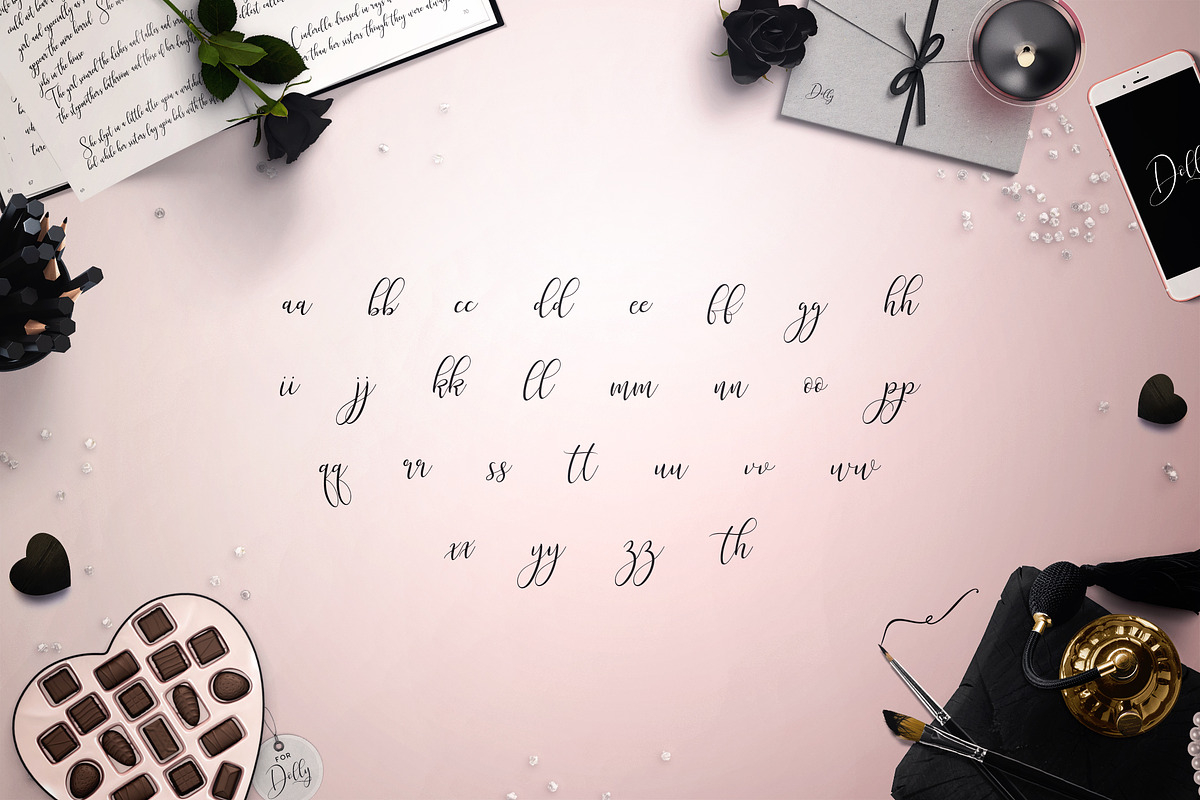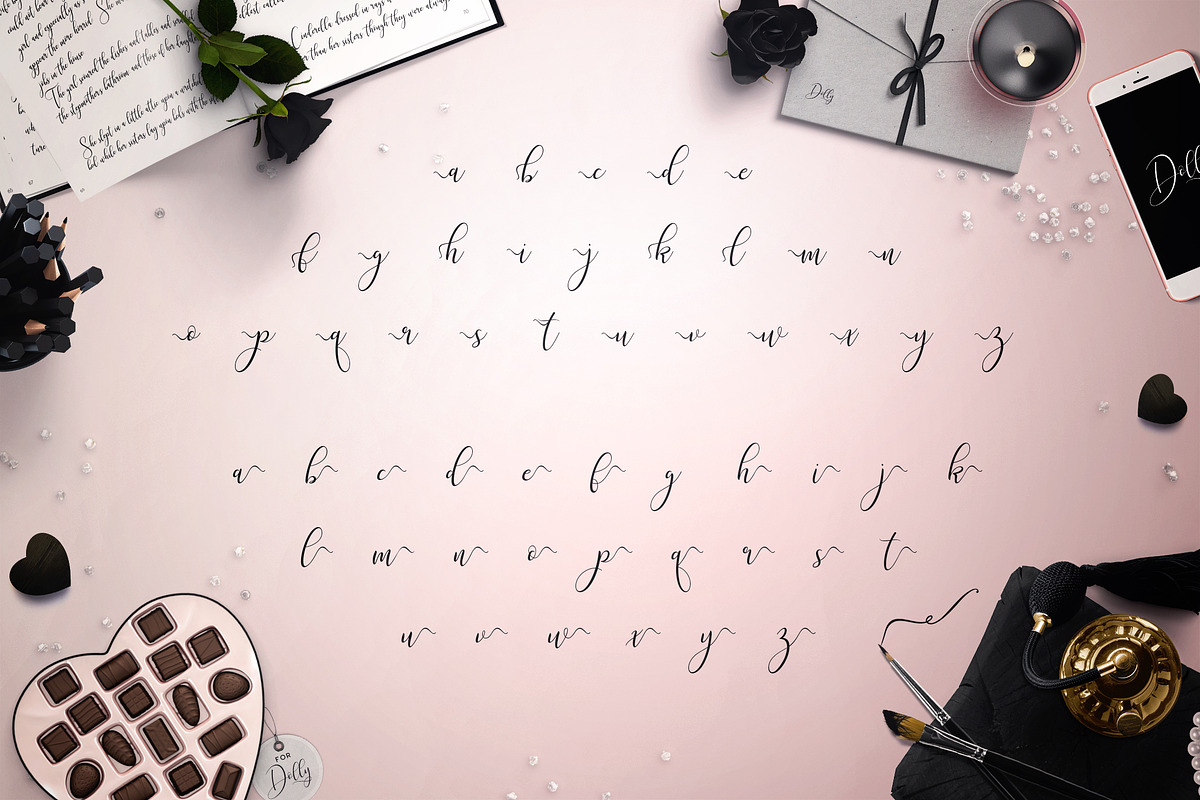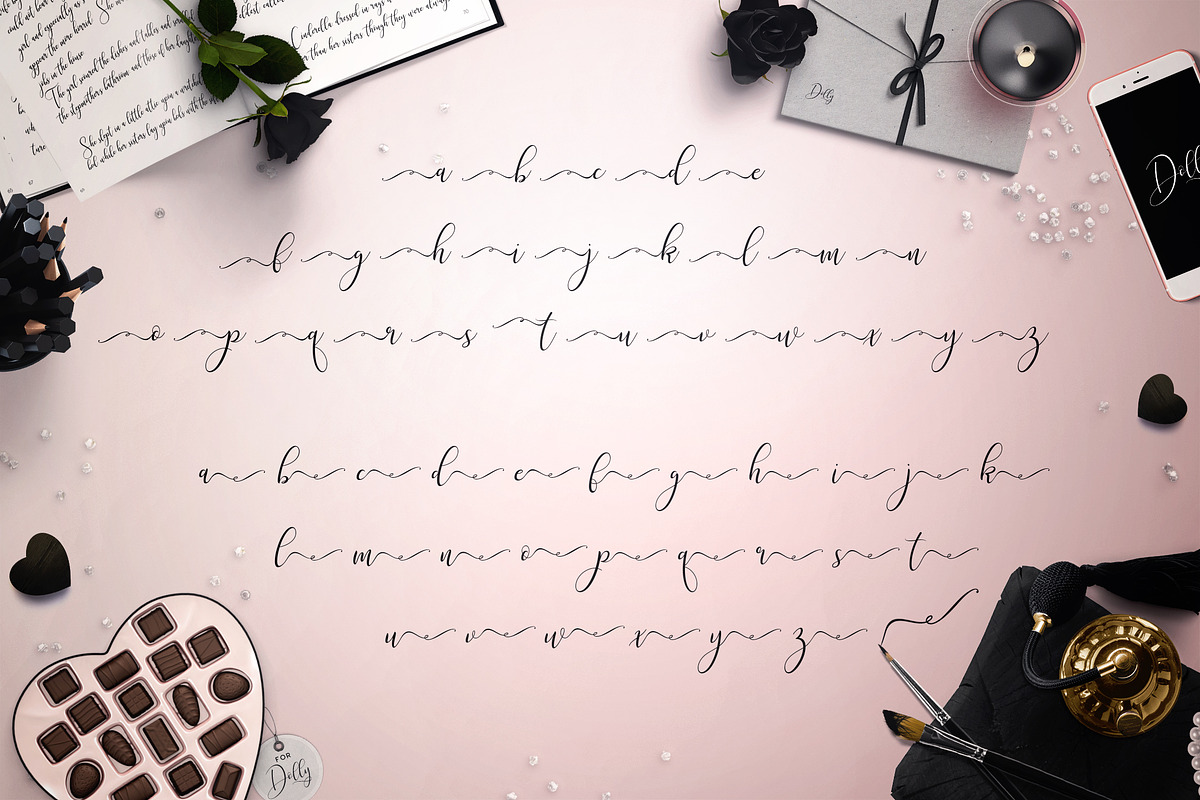
Dolly Script
Dolly Script is an Exclusive Font Bundles Font. Swirly and Elegant this fantastic font is perfect for anything from Wedding Invites to Wall Plaques, Gifts and more.
Packed with PUA encoded extra glyphs, this font will turn any project into an instant masterpiece.